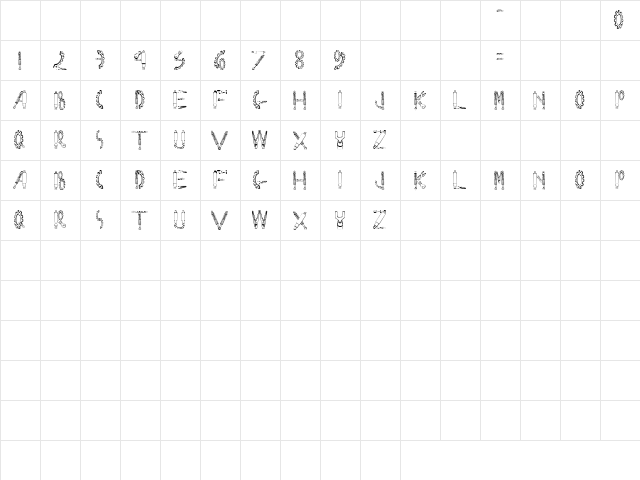
Rusted Machine Regular
Design Context for Rusted Machine Typeface
Rusted Machine is a composed and adaptable typeface that performs quietly and consistently across a wide range of design contexts.